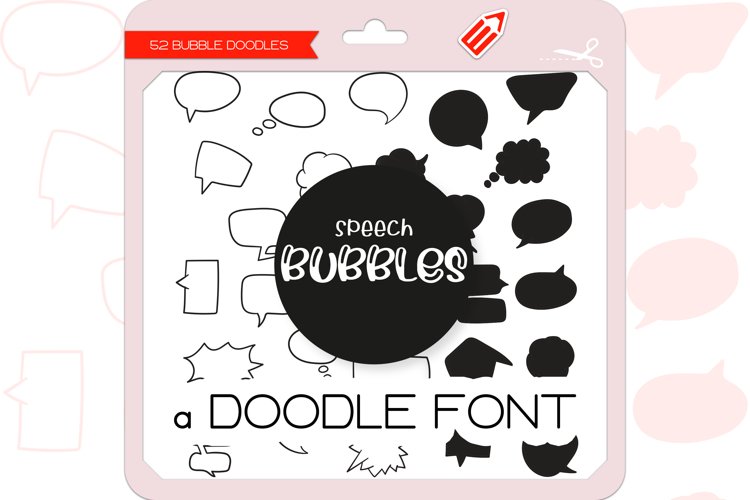
Speech Bubbles is a unique and cute dingbats font. Add this font to your creative ideas and make your arts outstanding!
Speech Bubble dingbats font containing 52 hand-drawn doodles.